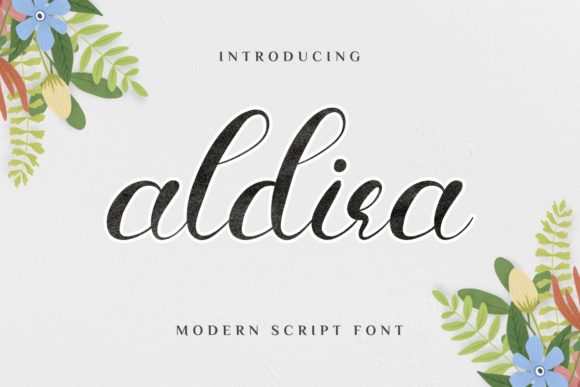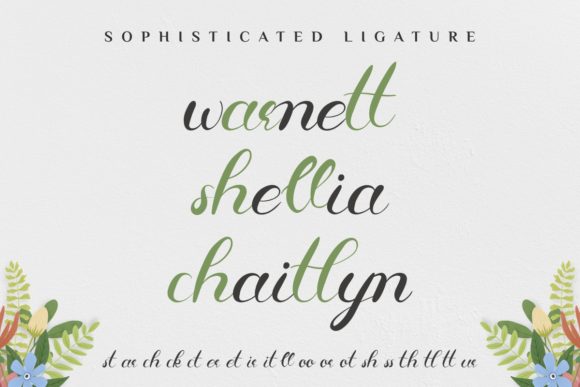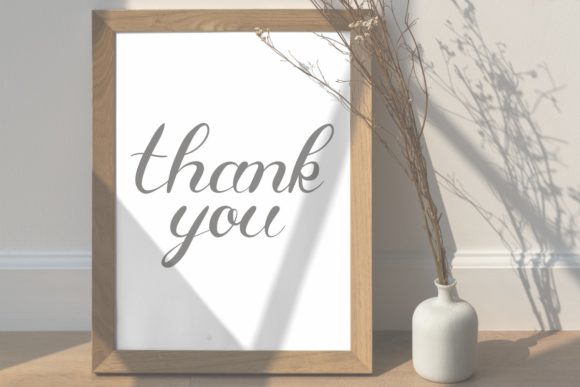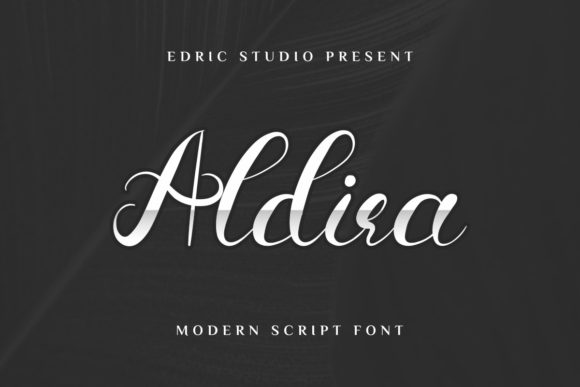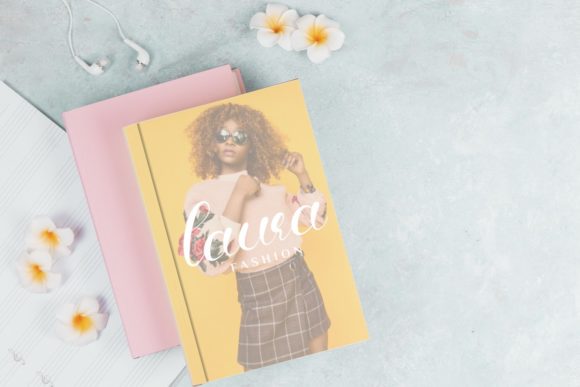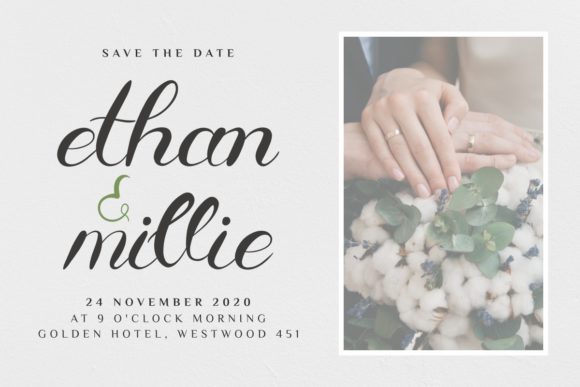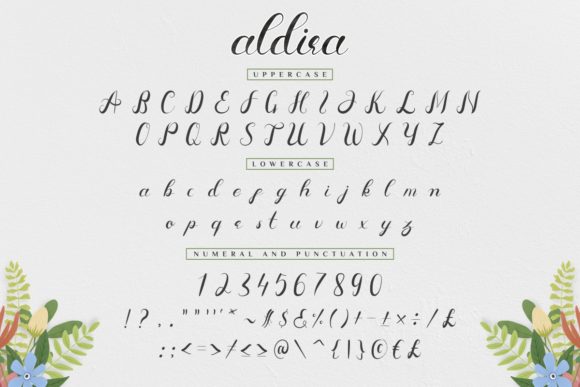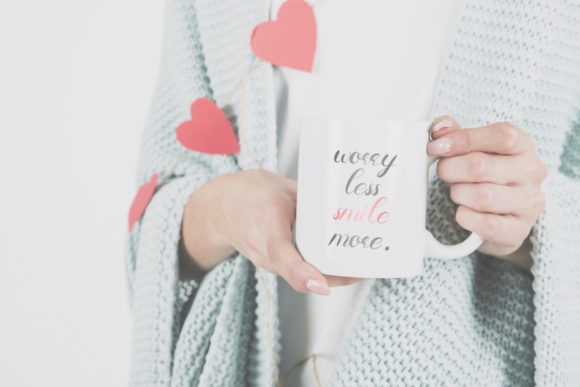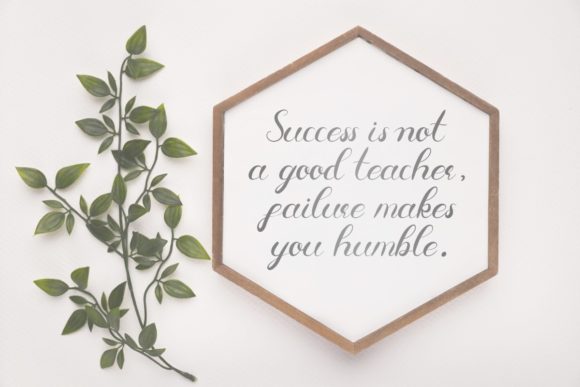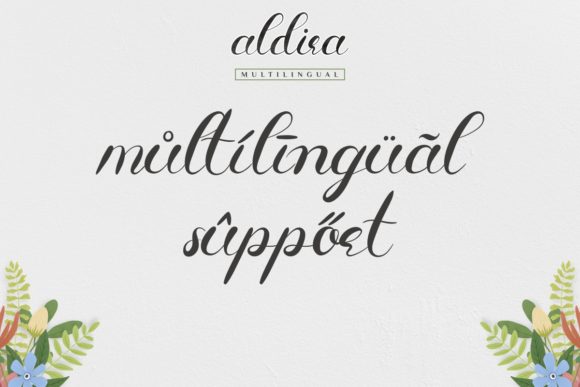
Aldira Font
About Aldira Font
Aldira is an elegant and delicate handwritten font, created with the help of a stunning brush pen. Fall in love with its incredibly versatile style and use it to create spectacular designs!